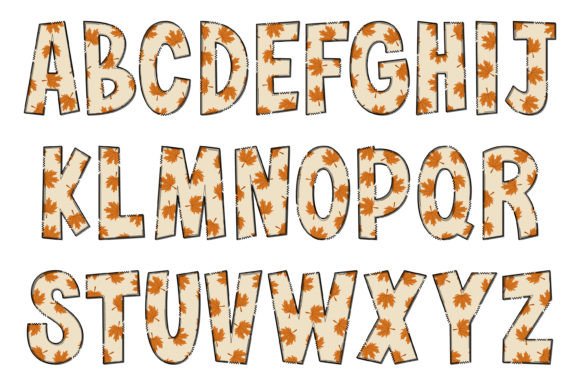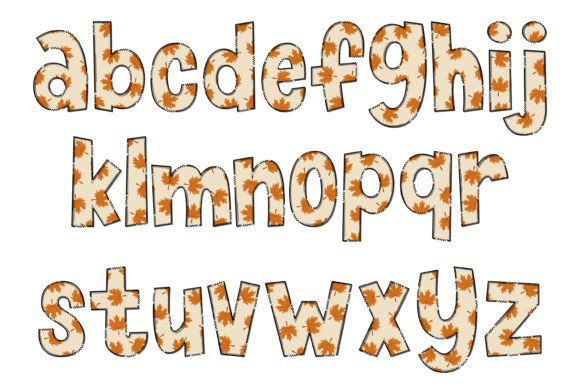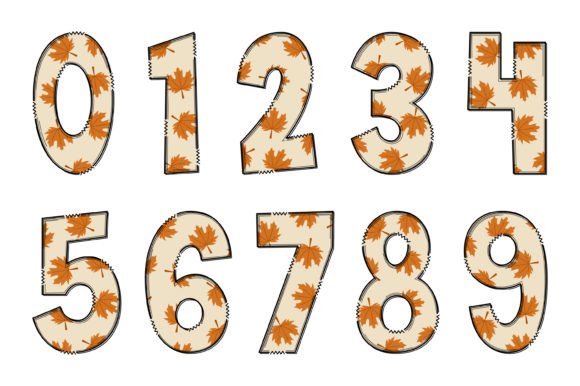
Get Ready to Fall in Love with Autumn Leaves Font
As the seasons change and the air grows crisp, many of us find ourselves drawn to the vibrant colors and cozy atmosphere of autumn. For designers, this means a treasure trove of inspiration for seasonal projects and crafts. And what better way to capture the essence of fall than with a font that brings the beauty of the season to life?
Enter Autumn Leaves Font, a charming and playful color font that’s perfect for adding a touch of fun and enchantment to your designs. Each letter is adorned with vibrant and whimsical leaves in a variety of warm autumn colors, making it a valuable tool for designers looking to create eye-catching and engaging content. With its cheerful and lively design, Autumn Leaves Font is sure to bring a smile to your customers’ faces and leave a lasting impression.
Autumn Leaves Font Key Features
- Unique Characteristics: Autumn Leaves features a unique blend of organic and natural elements, with intricate details that evoke the feeling of falling leaves.
Designer Review: Autumn Leaves Font
Overall, I’d say Autumn Leaves Font has its charm, but it’s not without its quirks. Let’s dive in and see what makes it tick.
- Unique, hand-drawn style that evokes a sense of nostalgia and warmth.
- Perfect for fall-themed designs, like invitations, posters, or social media graphics.
- Works well in bold, attention-grabbing headlines or as a subtle accent font.
- May be too ornate for some designs, overwhelming the message or theme.
- Lack of variation in letter spacing and kerning can make text feel dense and hard to read.
- Some characters, like the “g” and “q”, are quite irregular, which may be a challenge for precise typesetting.
Autumn Leaves Font is a great choice for designers looking to add a touch of whimsy and personality to their fall-themed projects. While it’s not without its limitations, its unique style and versatility make it a valuable addition to any designer’s toolkit.
The Autumn Leaves Font is perfect for creating seasonal designs, such as fall-themed invitations, posters, and social media graphics. To get the most out of it, use it in conjunction with warm, earthy colors and natural textures. Experiment with different font sizes and styles to create a visually appealing design.